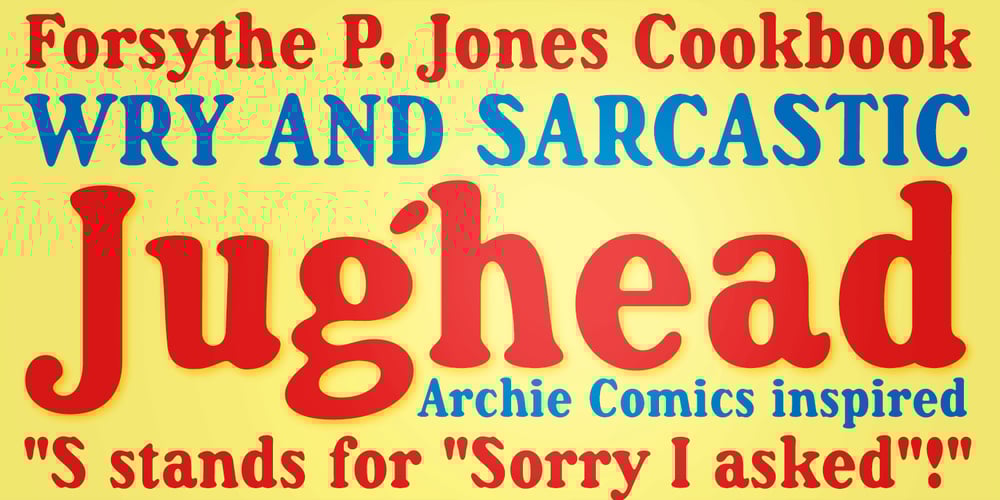
Jughead PB
Jughead PB font
Jughead PB Font Family was designed by Phil Bracco and published by Pink Broccoli. Jughead PB contains 1 styles and family package options. Jughead PB is a classic vintage typestyle reminiscent of Archie Comics, and other retro comics and ads. Jughead PB began as a digitization of a film typeface known as Post Condensed by LetterGraphics, perfect for typesetting early children books, candy packaging, toy packaging, birthday invitations, and beyond. It’s a bit like Cooper, while having a looser, more feel.Jughead is familiar, while being different, and a friendly feel without being too offbeat or eccentric. Try it out in your designs to take advantage of that deja vu connection.